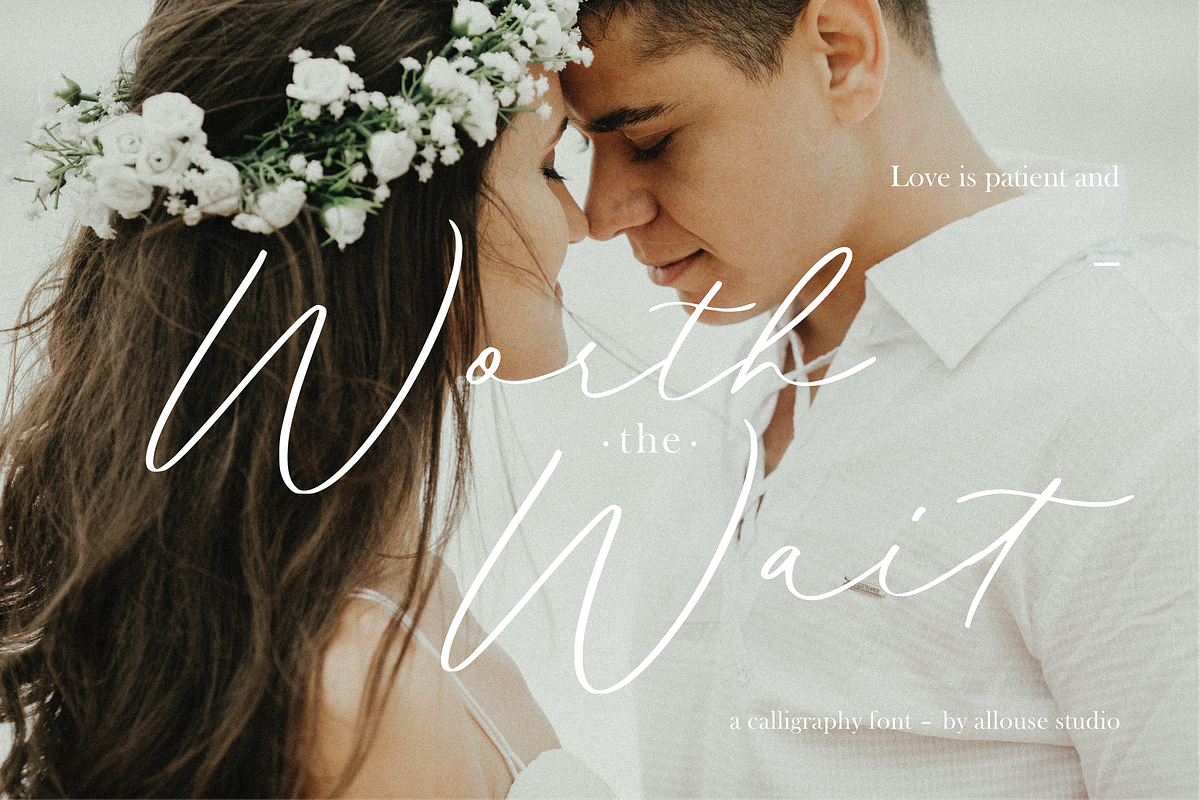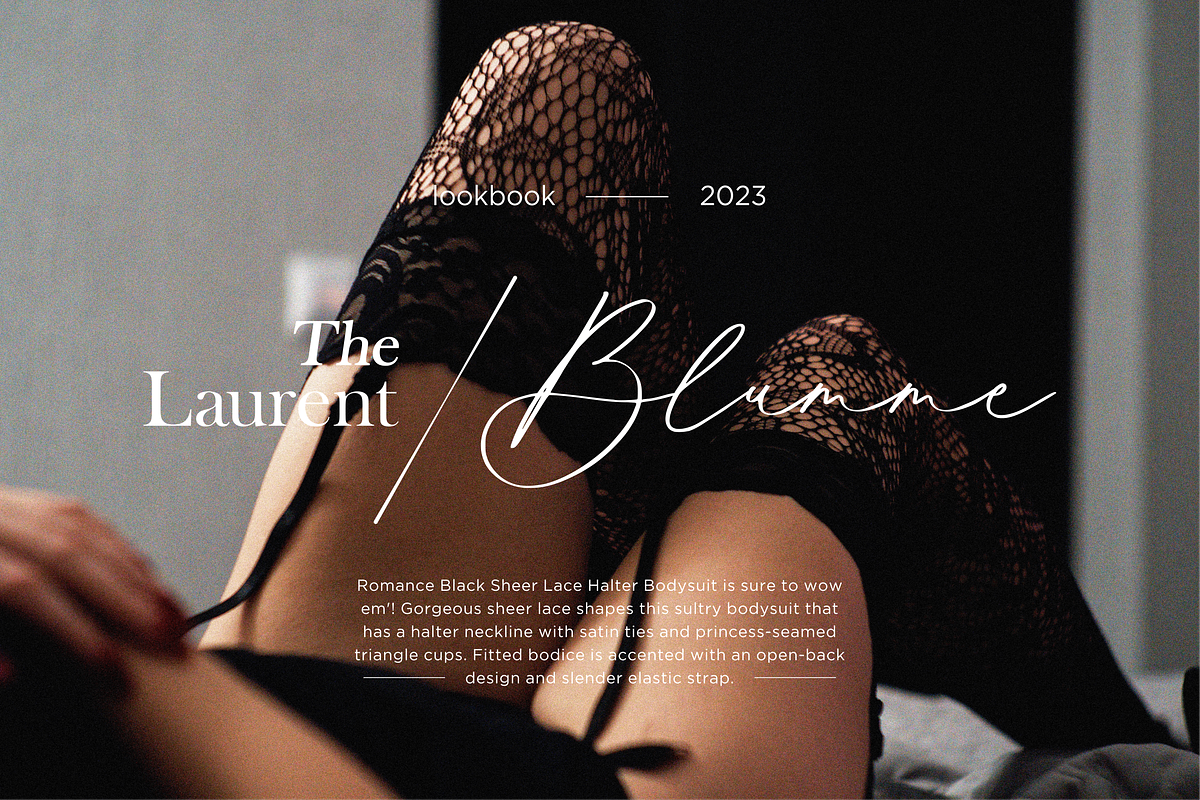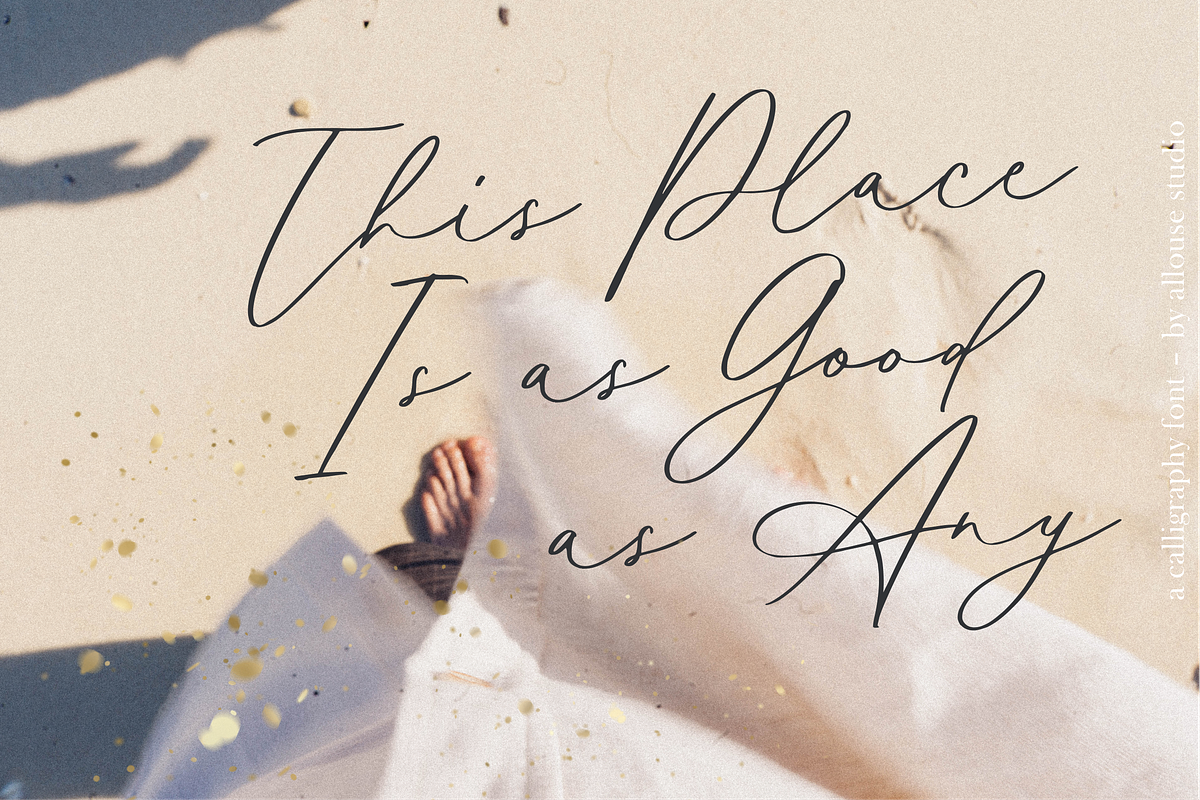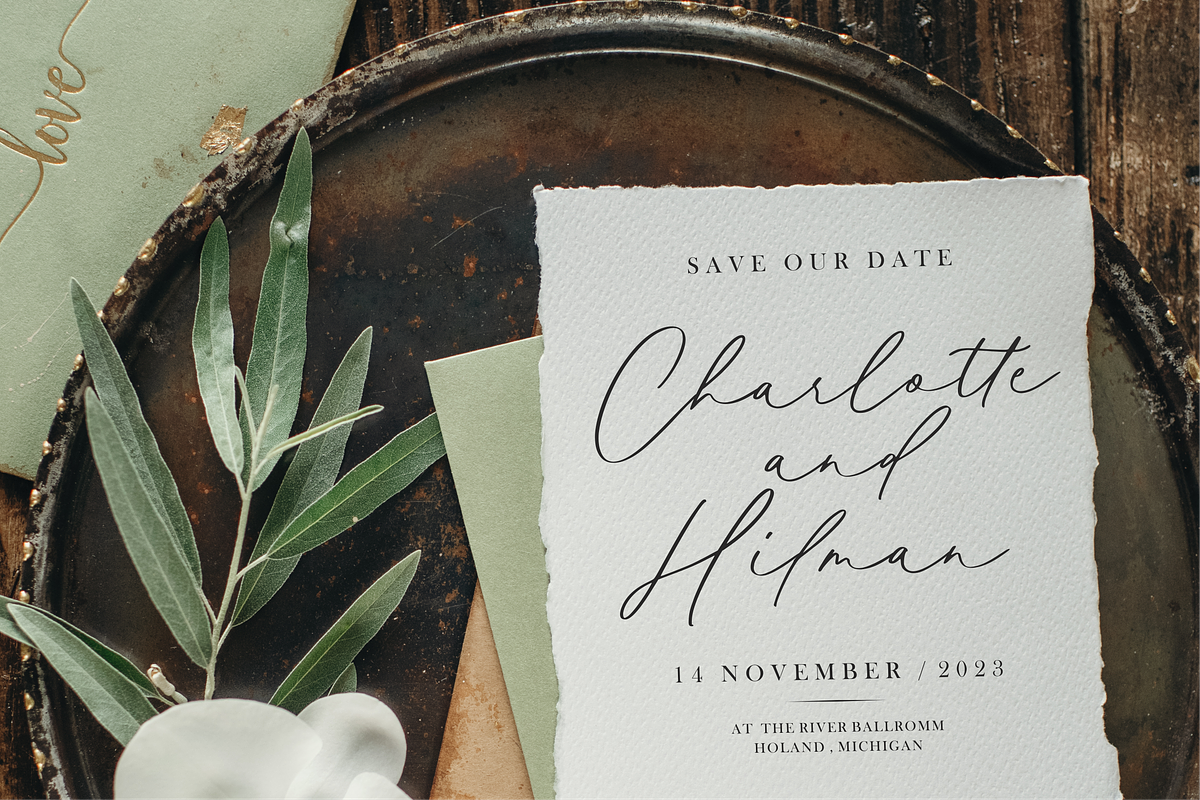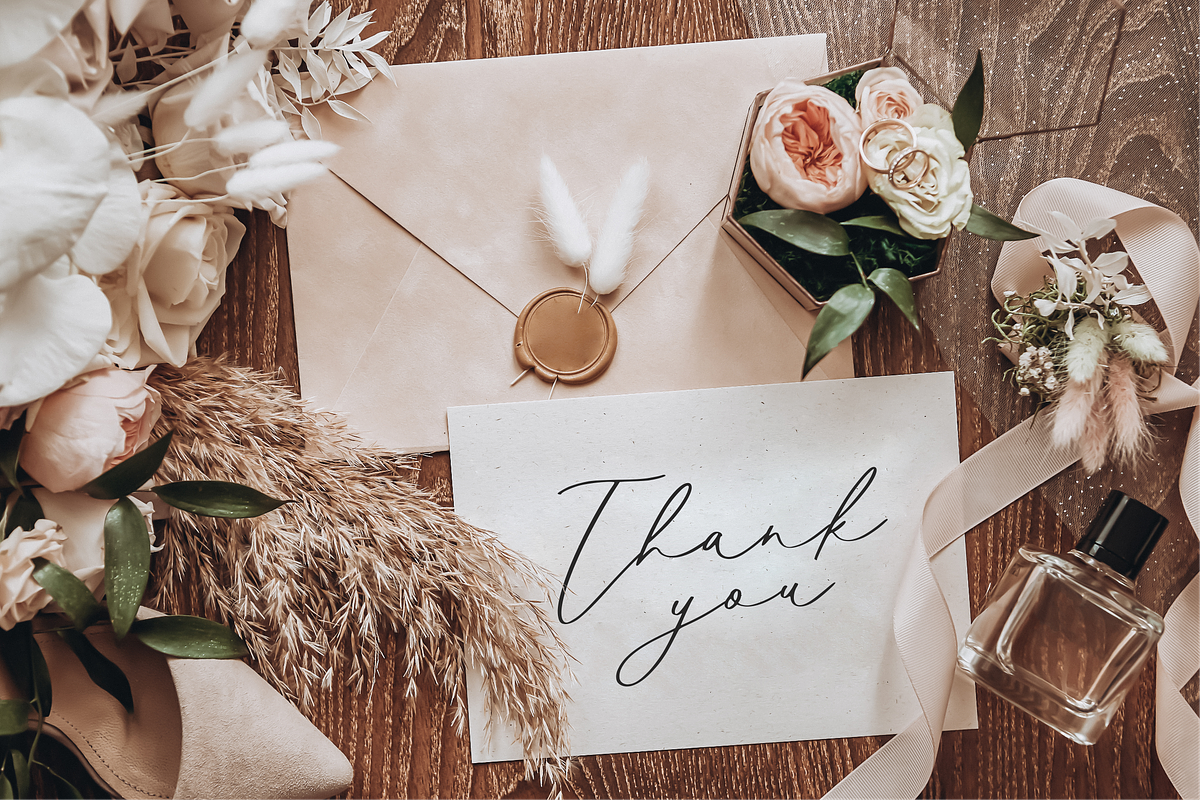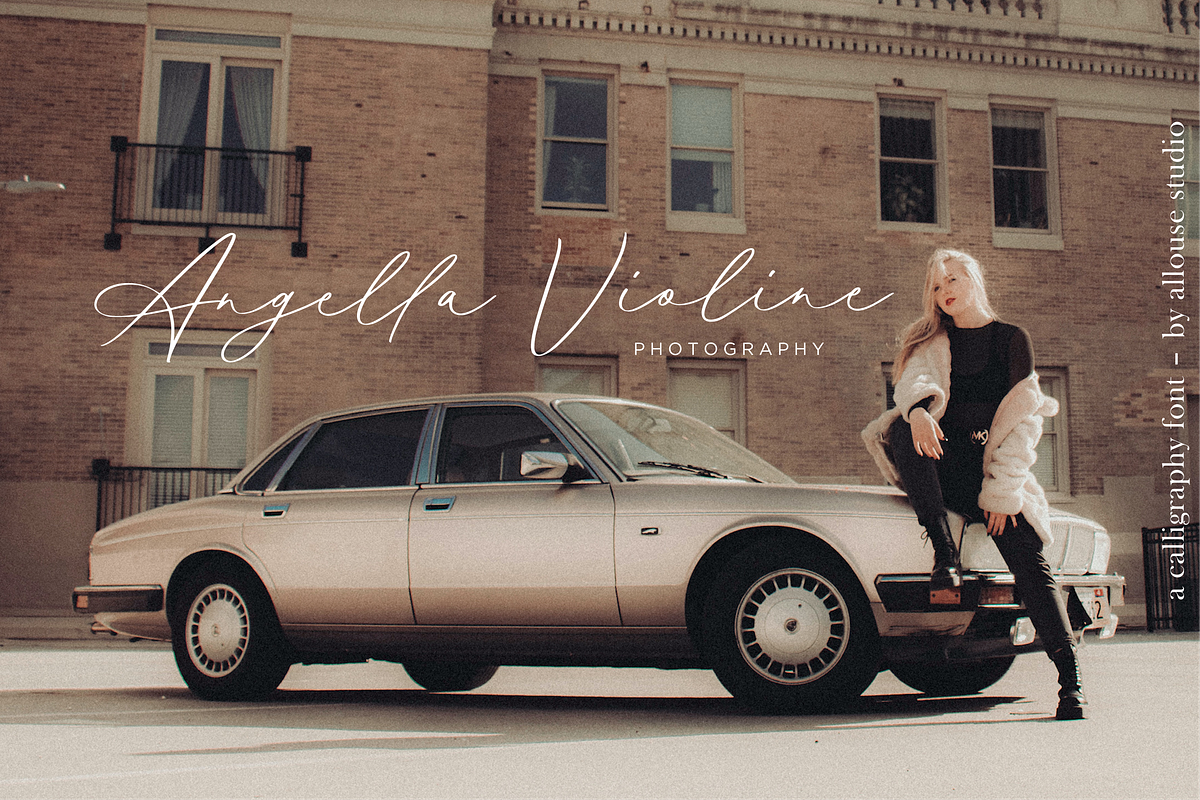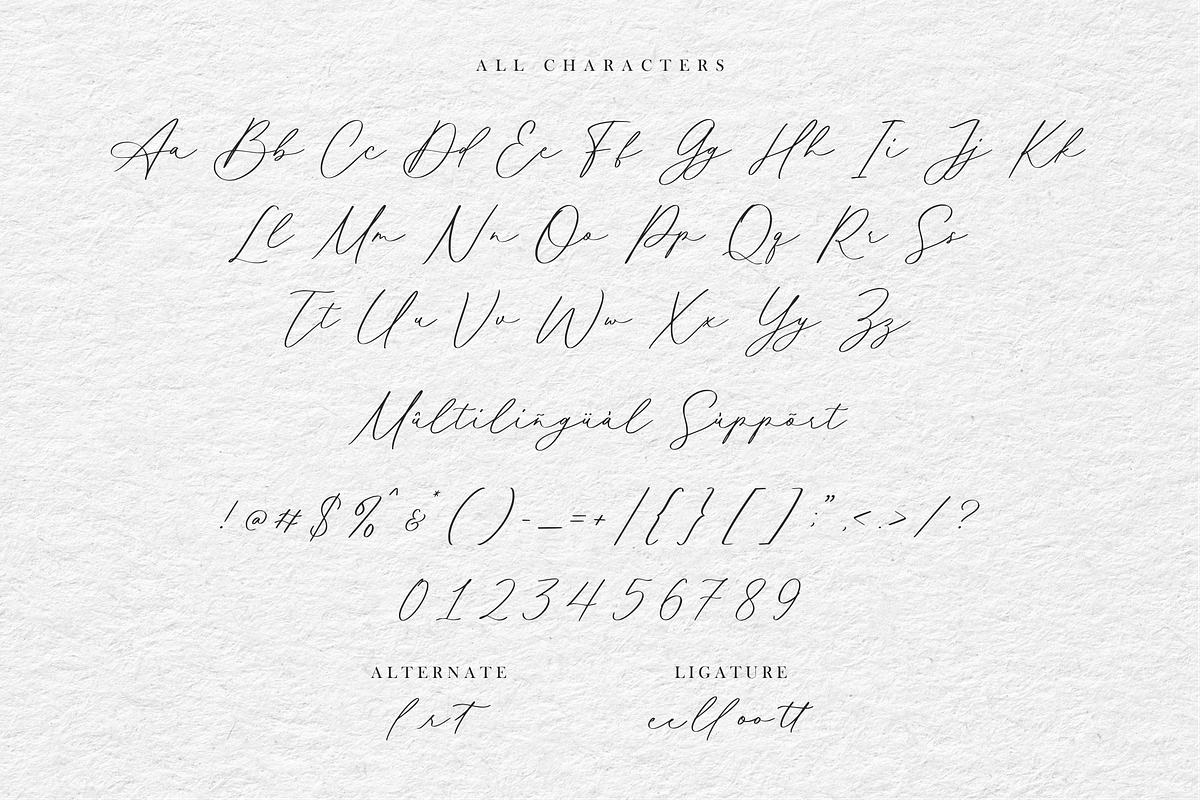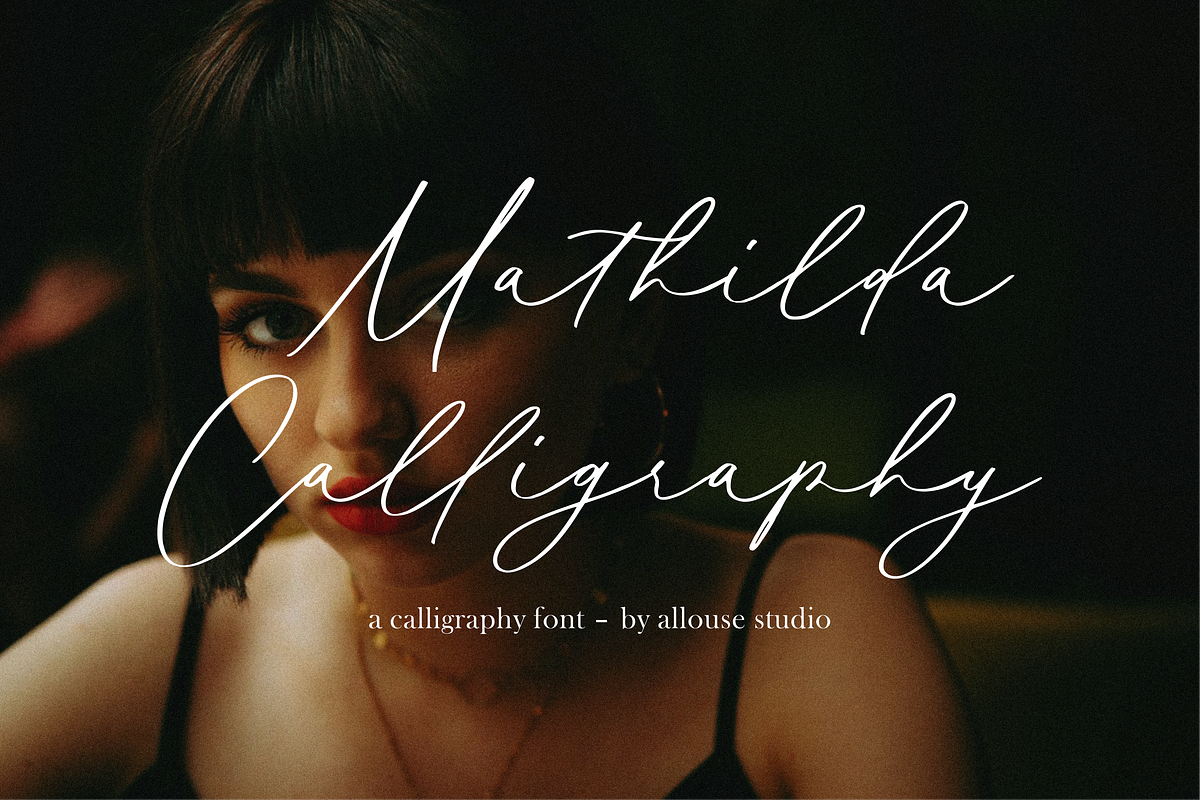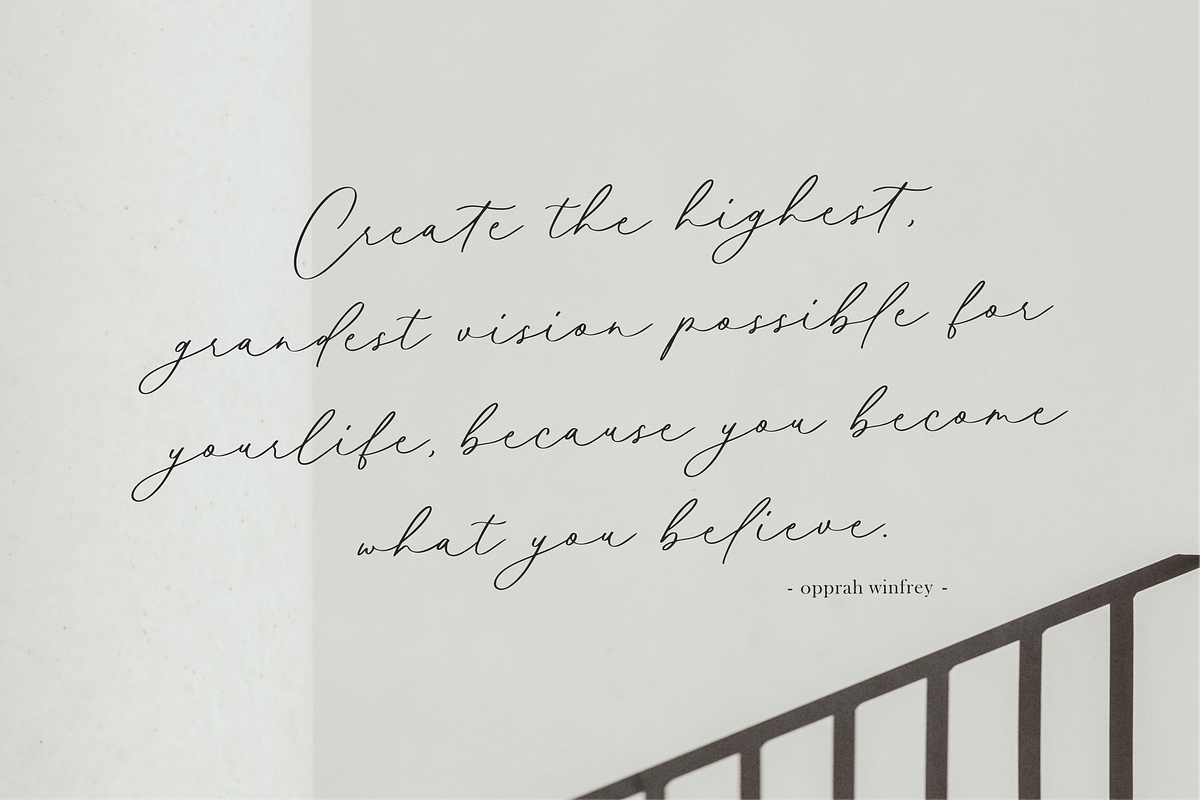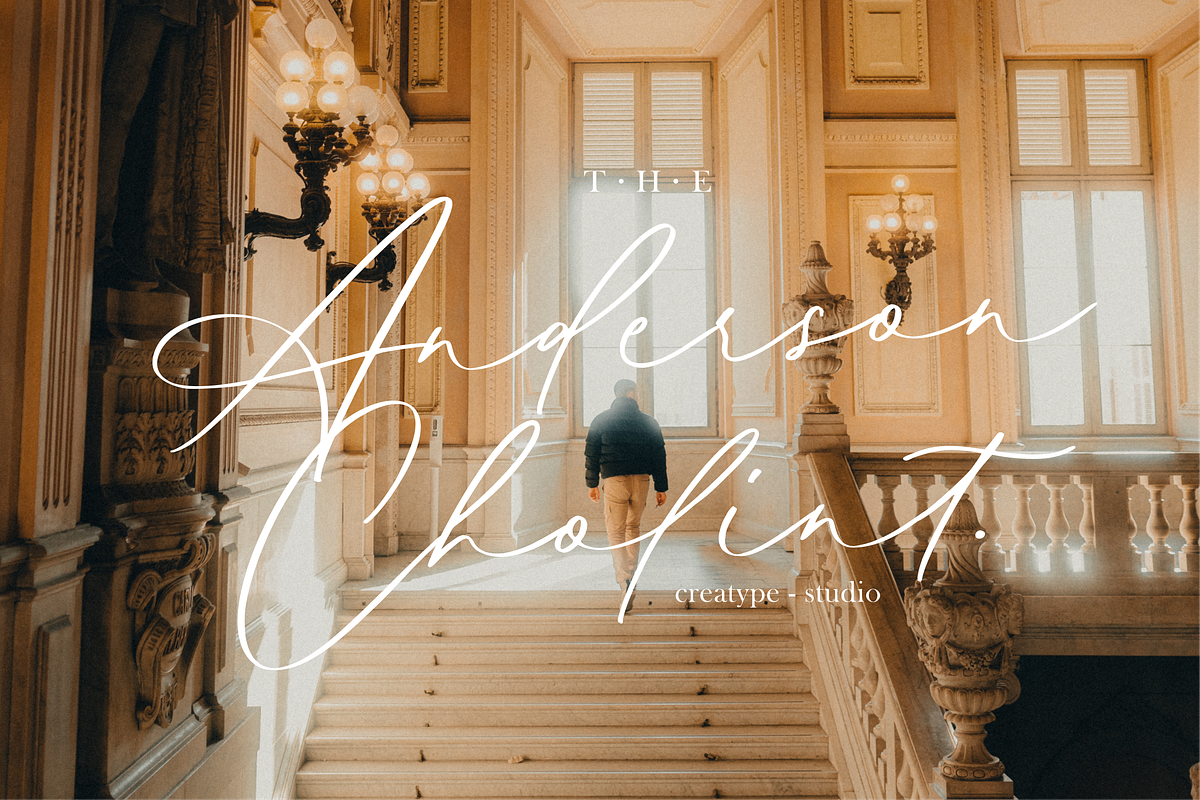
Mathilda Calligraphy
Proudly Presenting, Mathilda Calligraphy A Handwritten Calligraphy Font.
Mathilda Calligraphy is perfect for any titles, logo, product packaging, branding project, megazine, social media, wedding, or just used to express words above the background.
Mathilda Calligraphy also come with Multi-Lingual Support.